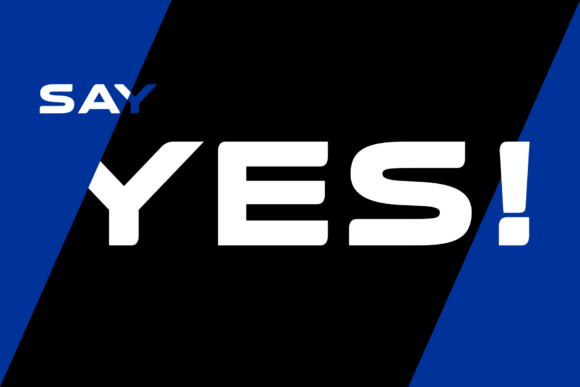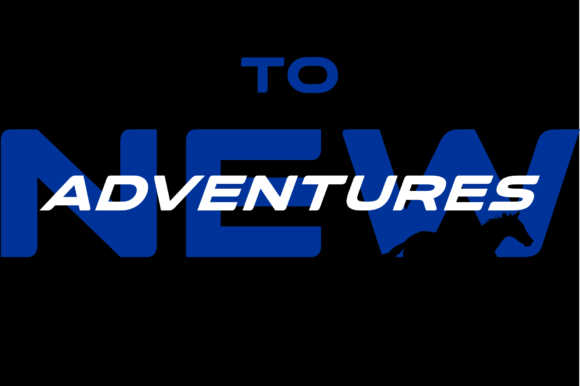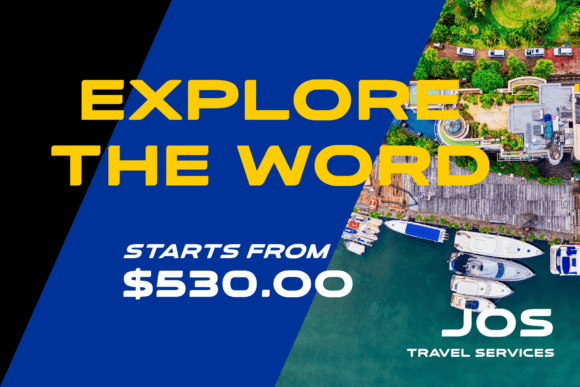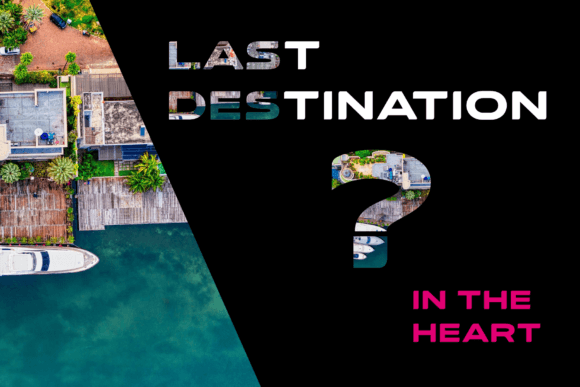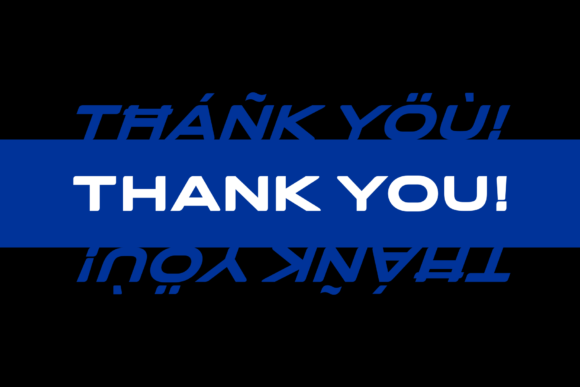
Introducing Equines Font: The Ultimate Display Font for Bold and Elegant Lettering
In the world of typography, a good font can make all the difference in creating a lasting impression. For designers and crafters looking for a font that exudes confidence, strength, and elegance, Equines Font is the perfect solution. Specifically designed for display purposes, Equines Display is a versatile font family that is ideal for branding, logos, banners, and any lettering that requires bold and clear letters.
The Design Philosophy Behind Equines Display
Equines Display boasts a modern, thick, and strong appearance that is sure to grab attention. But what sets it apart from other display fonts is its unique design philosophy. The font’s creator has carefully crafted Equines Display to not only convey boldness but also elegance. This is achieved through the addition of a rounding feature to the corners of the letters, which adds an artistic touch to the font’s overall appearance.
The Power of Rounded Corners: A Cross-System Approach
The rounding feature in Equines Display is not just a simple addition; it’s a carefully thought-out design element that enhances the font’s overall aesthetic. By incorporating rounded corners, the font takes on a dynamic, strong, and elegant appearance that is perfect for a wide range of applications. This cross-system approach to font design ensures that Equines Display remains consistent across different platforms and devices.
Equines Display is a font that is specifically designed with designers and crafters in mind. Whether you’re working on a branding project, creating a logo, or designing a banner, this font is sure to meet your needs. Its versatility and flexibility make it an excellent choice for a wide range of applications, from digital displays to print materials.
Key Features of Equines Display
- Modern and Strong Appearance: Equines Display boasts a thick and strong appearance that is perfect for making a bold statement.
- Elegant and Dynamic: The font’s rounded corners add an artistic touch, making it elegant and dynamic.
- Versatile: Equines Display is perfect for a wide range of applications, from branding and logos to banners and digital displays.
- Cross-System Compatible: The font is designed to be consistent across different platforms and devices.
How to Use Equines Display in Your Design Projects
Using Equines Display in your design projects is easy. Here are a few tips to get you started:
- Pair it with a Sans-Serif Font: Equines Display pairs well with sans-serif fonts, creating a harmonious and balanced look.
- Experiment with Colors: The font’s bold appearance makes it perfect for use with bright and bold colors.
- Use it for Headings and Titles: Equines Display is ideal for headings and titles, where a bold and clear font is essential.
In conclusion, Equines Display is a versatile font family that is perfect for designers and crafters looking for a bold and elegant display font. Its modern, thick, and strong appearance, combined with its unique rounded corners, make it an excellent choice for a wide range of applications. Whether you’re working on a branding project, creating a logo, or designing a banner, Equines Display is sure to meet your needs.
Get Ready to Make a Statement with Equines Display